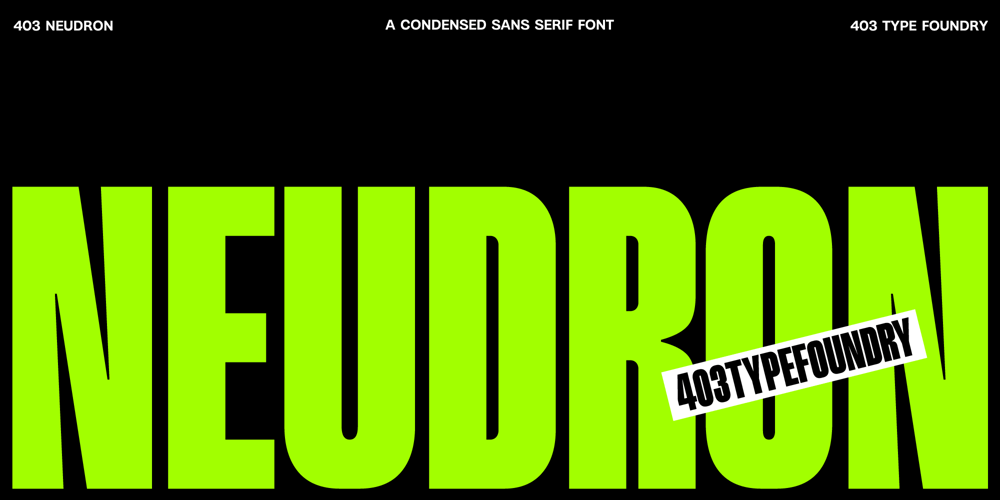
403 Neudron Font Family was designed by Umar Al Farouq, Jodi El Ghazi, Febri Riansah and published by 403TF. 403 Neudron contains 2 styles and family package options. Designed to create a strong impression, the 403 Neudron is a bold, condensed sans-serif typeface. This typeface is ideal for making eye-catching headlines, posters, and branding materials because of its simple, geometric shape and condensed size. It is perfect for both print and digital applications because of its substantial weight, which conveys confidence and authority, and its compact shape, which makes effective use of available space. 403 Neudron’s contemporary, minimalist style offers optimal readability and adaptability for applications involving technology, sports branding, or urban planning. It is a popular option for designers who want to produce striking, memorable designs because of its strong, modern personality. 403 Neudron is a statement rather than merely a typeface.